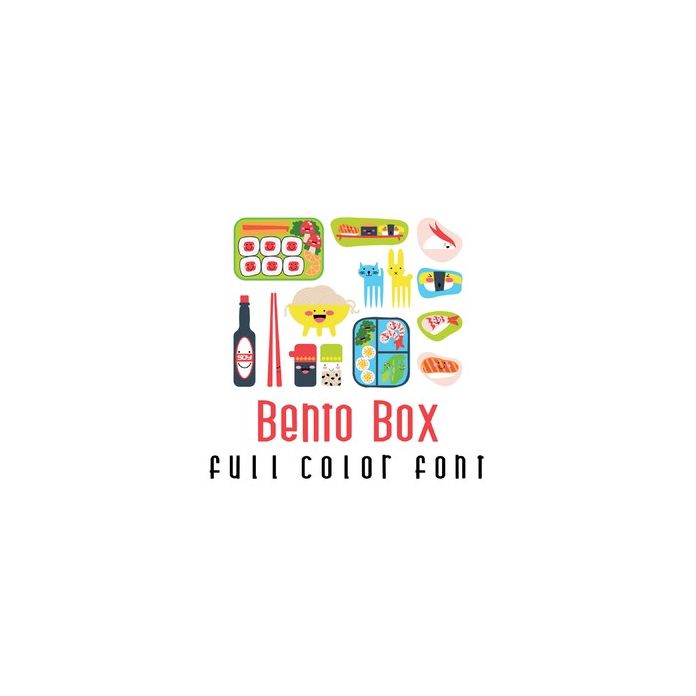
This adorable full color doodlebat font features 26 adorable sushi and bento box themed imagery. Perfect for cards, crafts, gifts, decor, scrap book pages, planner stickers and more!